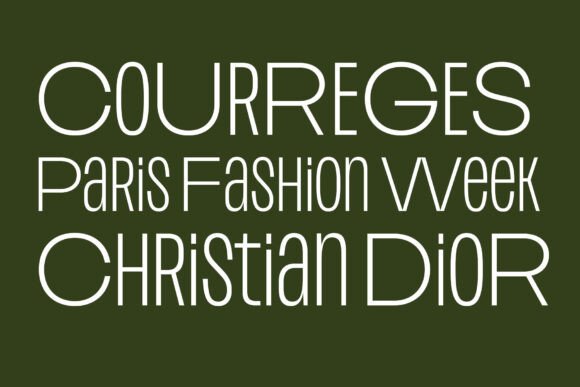
Introduction to Plex Beta Regular Font
That’s where the Plex Beta Regular Font comes in – a high-quality, versatile typeface that’s perfect for both body text and branding purposes. With its clean, minimalist design and even spacing, this font is a valuable design resource that’s sure to elevate your creative project. And the best part? It’s free to download, making it an accessible addition to any design arsenal.
Whether you’re working on a digital project or printing a design, the Plex Beta Regular Font delivers consistency with a futuristic flair that’s sure to impress. So why settle for a generic font when you can have a high-quality design resource like the Plex Beta Regular Font?
Plex Beta Regular Font
- High-quality design font ideal for creative projects requiring a professional look.
- Features a transparent background, making it easy to integrate with various design elements.
- Unique characteristics: Geometric and modern design, perfect for creating a sleek and sophisticated visual identity for creative projects.
Honest Review: Plex Beta Regular Font
I recently had the chance to work with the Plex Beta Regular Font, and I must say it’s a great addition to any designer’s toolkit. This font is perfect for those looking for a high-quality, clean design resource.
One of the standout features of the Plex Beta Regular Font is its transparent background, making it incredibly versatile for use in various creative projects. Whether you’re designing a logo, brochure, or website, this font is sure to impress.
Plex Beta Regular Font